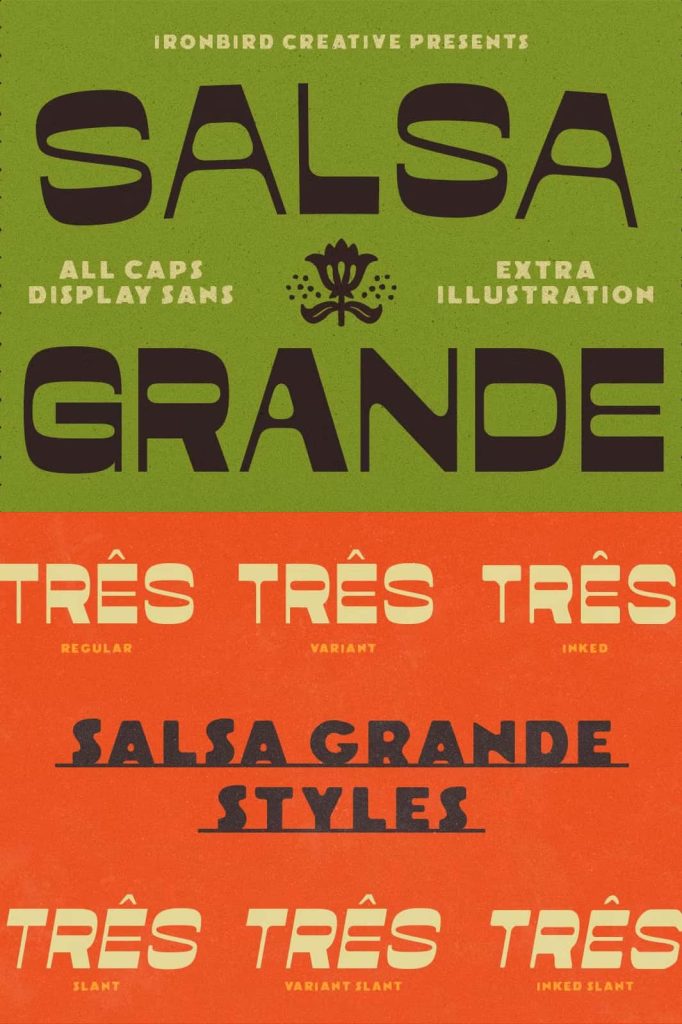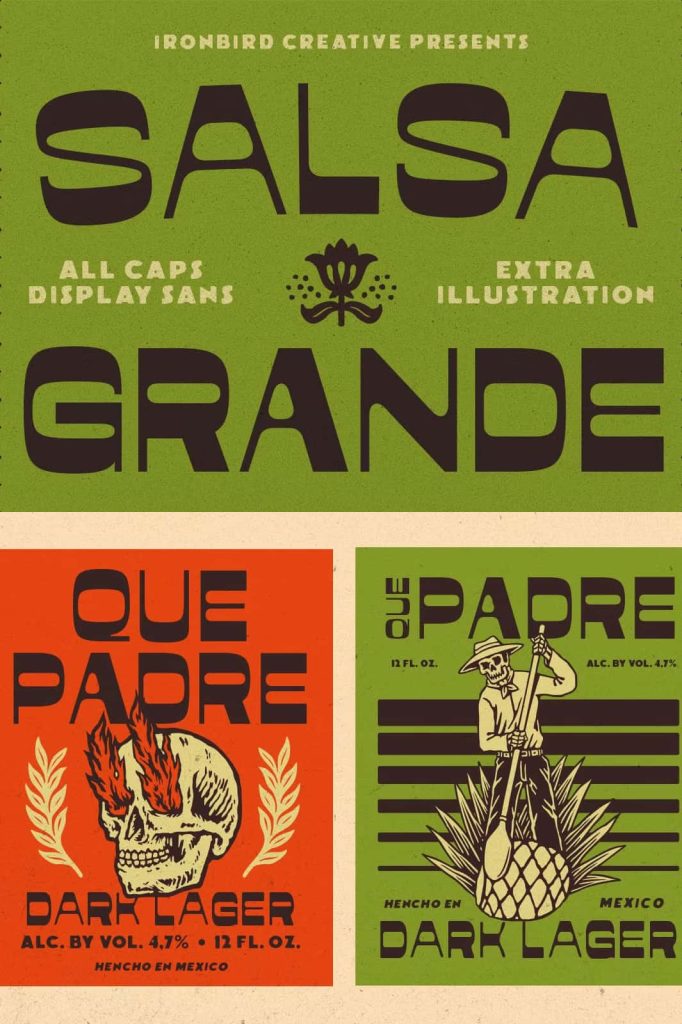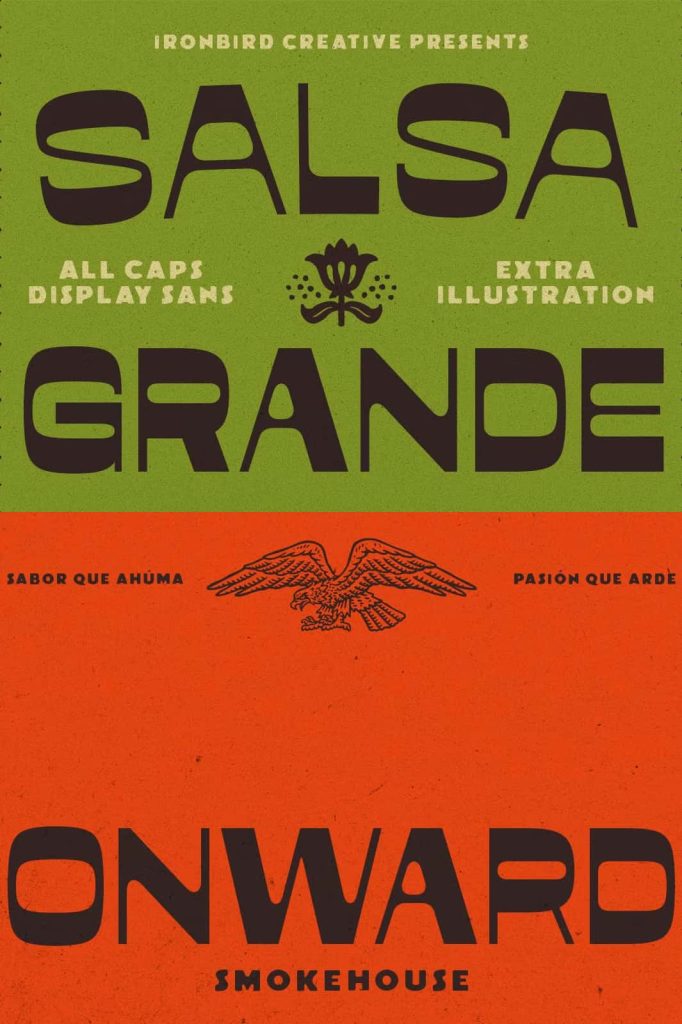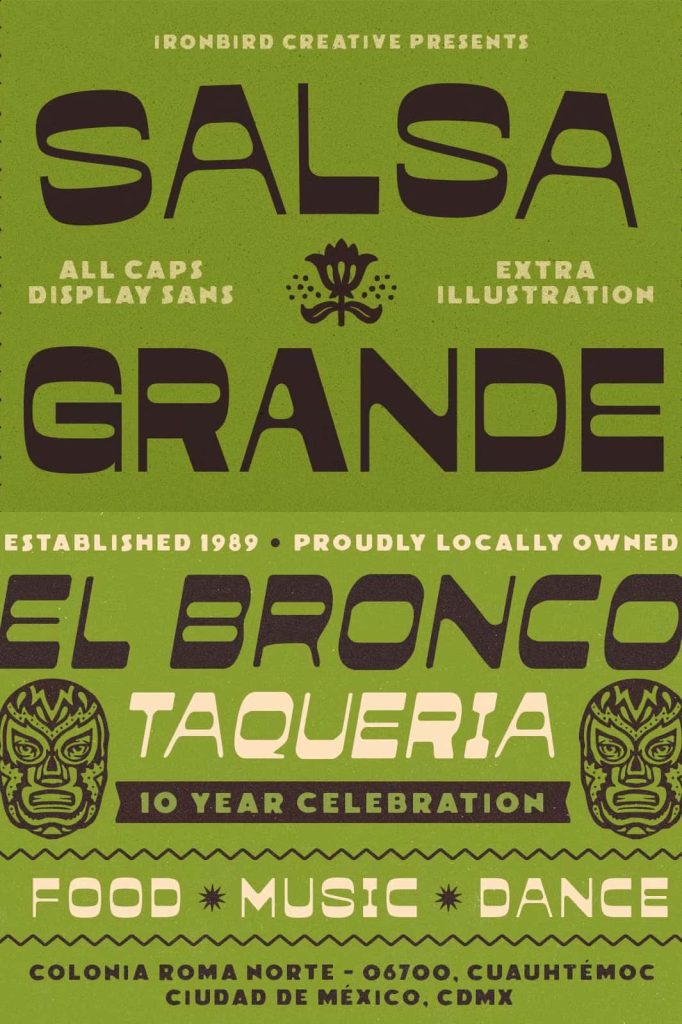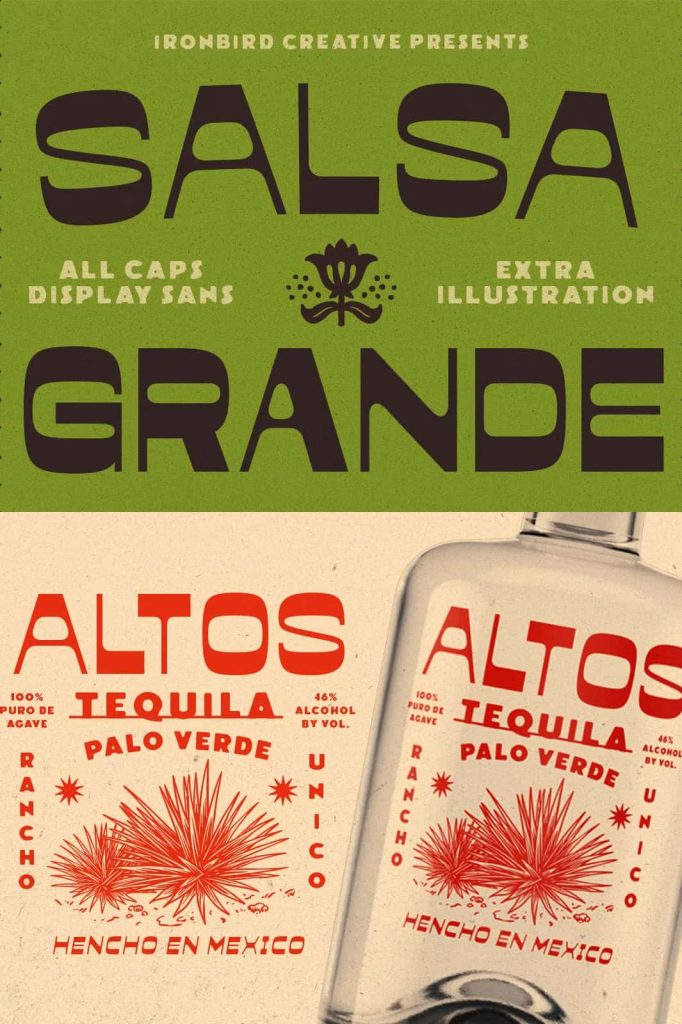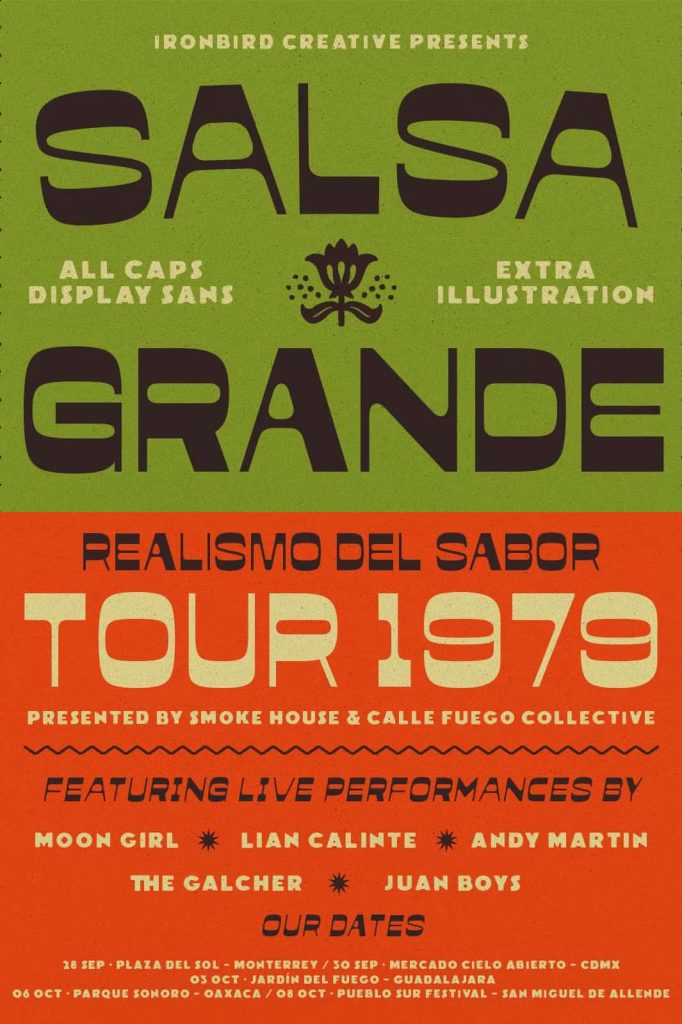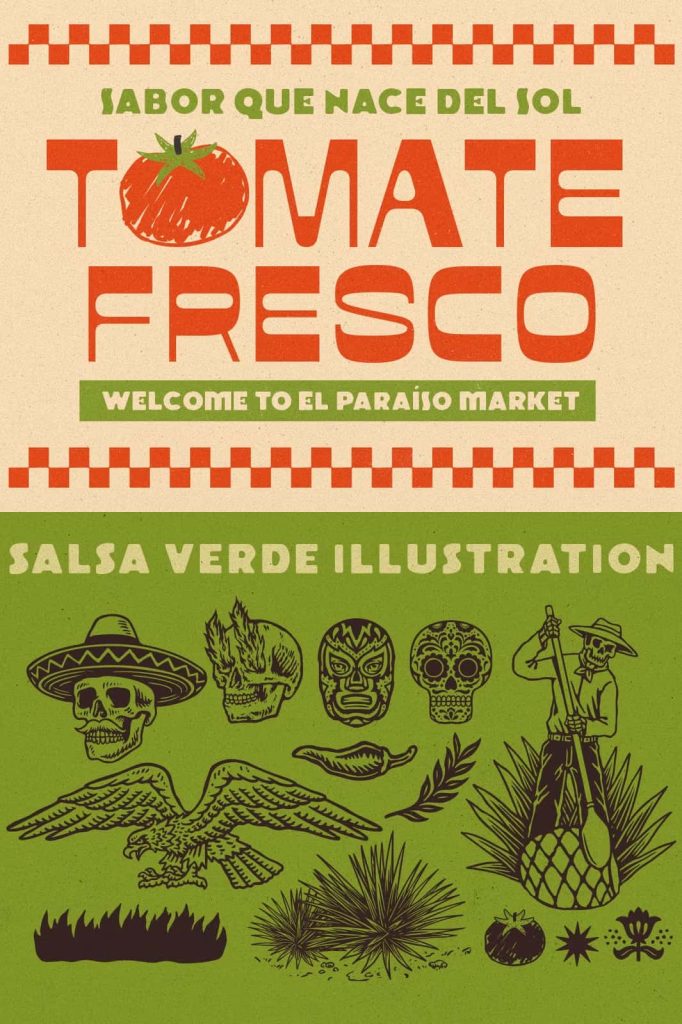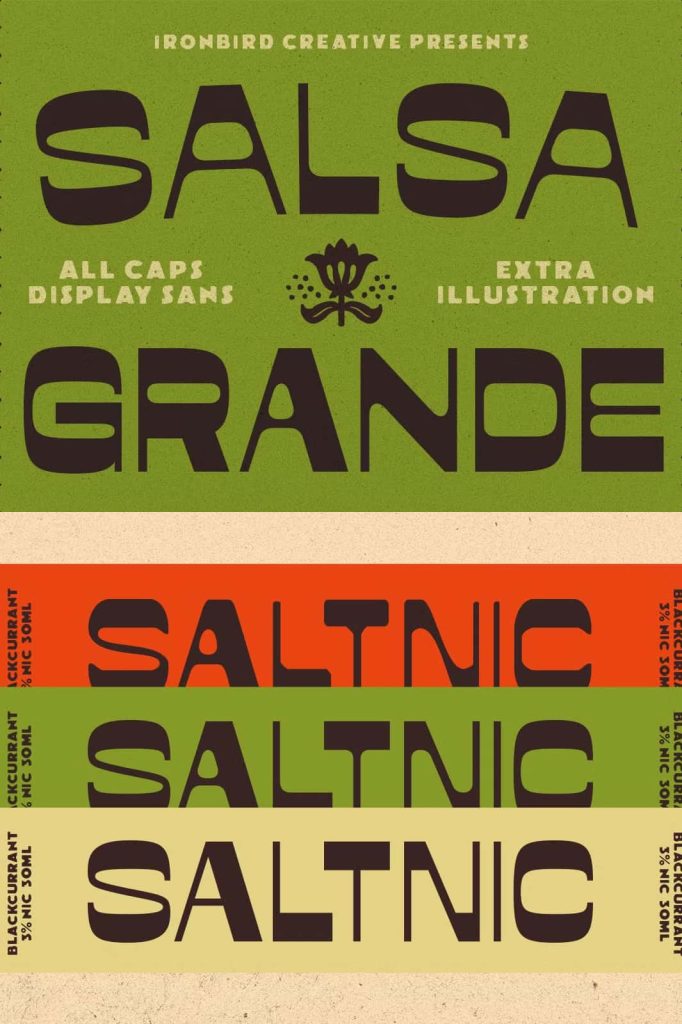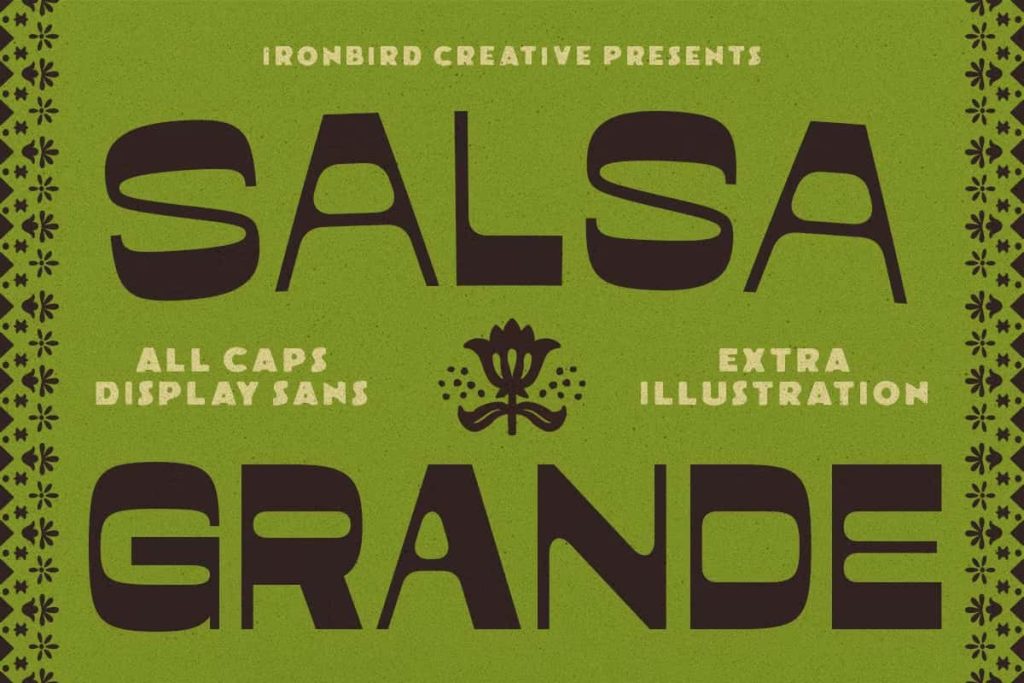
Salsa Grande & Extras!
Salsa Grande Font
Salsa Grande Font is a bold display sans-serif typeface designed to bring energy, personality, and vibrant character to your creative projects. Inspired by the lively spirit of Mexican culture, this unique font captures attention with its strong letterforms, playful style, and distinctive visual presence. Whether you are working on branding, advertising, packaging, event promotions, or social media content, Salsa Grande Font helps create memorable designs that immediately stand out.
Built for designers who want to make a bold statement, Salsa Grande Font combines modern display typography with cultural inspiration. The result is a versatile typeface that delivers both readability and artistic expression. Its eye-catching appearance makes it an excellent choice for projects that require a fun, energetic, and engaging visual identity.
A Bold Display Font with Unique Character
Salsa Grande Font features thick strokes, confident shapes, and carefully crafted details that give every word a strong visual impact. The font was designed to attract attention in headlines, logos, packaging, signage, and promotional materials. Its bold construction ensures that your message remains clear and effective across both print and digital platforms.
Unlike ordinary display fonts, Salsa Grande Font introduces a playful and festive personality that instantly adds warmth and excitement to a design. The carefully balanced letterforms create a dynamic appearance while maintaining excellent readability, making it suitable for a wide range of creative applications.
Multiple Styles for Maximum Creativity
One of the strongest features of Salsa Grande Font is its collection of versatile styles. The font family includes Regular, Variant, and Inked versions, allowing designers to choose the perfect look for different projects and visual themes. Each style is also available in a slanted version, providing even greater flexibility when creating dynamic and expressive layouts.
Included Font Styles
• Regular: Clean, bold, and versatile for everyday design needs.
• Variant: Alternative character styling that adds extra personality and uniqueness.
• Inked: A textured appearance that creates a handcrafted and authentic feel.
• Slanted Versions: Dynamic italic-inspired styles that add movement and energy to typography.
These multiple styles allow designers to mix and match typography elements while maintaining a consistent visual identity. Whether you need a polished commercial look or a more artistic handcrafted appearance, Salsa Grande Font offers the flexibility to support your creative vision.
Bonus Hand-Drawn Illustrations Included
To enhance your design possibilities, Salsa Grande Font includes a collection of bonus hand-drawn illustrations. These decorative elements help designers build complete visual compositions without searching for additional graphic resources. The illustrations complement the font’s festive personality and work perfectly alongside the typography to create cohesive and engaging designs.
The included artwork can be used for packaging, menu designs, posters, promotional materials, social media graphics, and themed branding projects. By combining the font with these illustrations, designers can quickly create unique layouts that capture attention and communicate a lively atmosphere.
Perfect for Branding and Marketing Projects
Salsa Grande Font is an excellent choice for businesses and brands that want to communicate energy, creativity, and authenticity. Its bold display style makes it highly effective for logo creation, product branding, restaurant promotions, food packaging, event marketing, and entertainment campaigns.
The font works particularly well for businesses in the food and beverage industry, cultural events, festivals, markets, cafes, restaurants, and lifestyle brands. Its vibrant appearance helps brands establish a memorable identity while creating a welcoming and approachable image.
Ideal Applications for Salsa Grande Font
• Logo and brand identity design
• Food and beverage packaging
• Restaurant menus and promotional materials
• Festival and event posters
• Product labels and merchandise
• Social media graphics and digital advertising
• Website banners and landing pages
• Signage and storefront displays
• Custom typography artwork
• Creative marketing campaigns
Create Memorable Designs with Salsa Grande Font
In a competitive visual landscape, strong typography plays a vital role in capturing audience attention. Salsa Grande Font provides the bold presence needed to make headlines, promotional messages, and brand names instantly recognizable. Its combination of expressive character, versatile styles, and complementary illustrations allows designers to build distinctive visual experiences that leave a lasting impression.
The font’s energetic personality makes it especially effective for projects that aim to communicate celebration, excitement, culture, and creativity. Whether used for large-format print designs or digital marketing materials, Salsa Grande Font consistently delivers strong visual results.
If you are searching for a bold display sans-serif font that brings energy, personality, and visual impact to your projects, Salsa Grande Font is an outstanding choice. With its festive spirit, versatile style options, and creative flexibility, this typeface helps transform ordinary designs into memorable visual experiences.